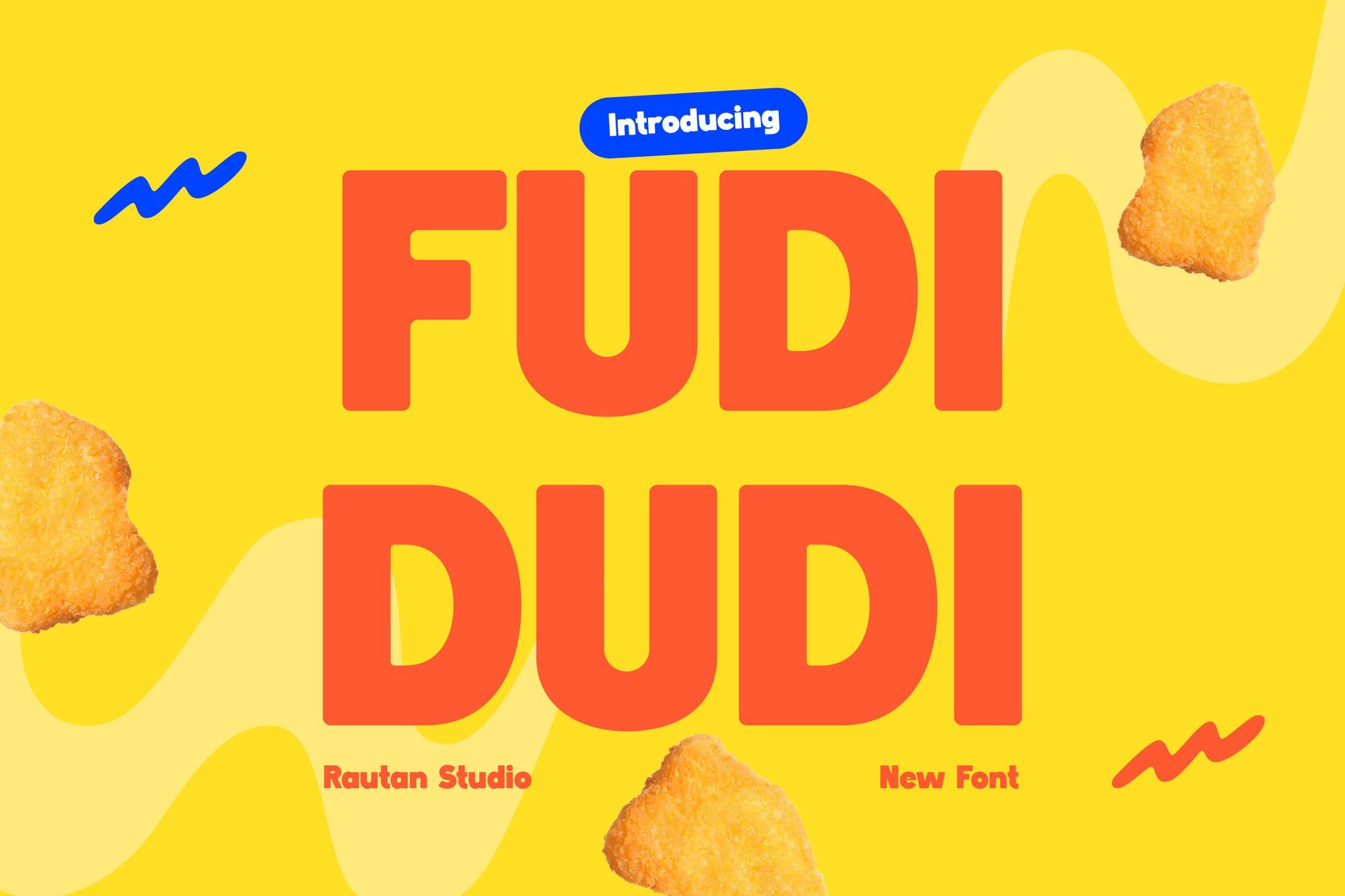
Fudidudi – Bold Diplay Font
Fudidudi – Bold Diplay Font is a clean and thoughtfully built typeface that works seamlessly for both professional branding and everyday creative uses. Fudidudi is a bold playful display typeface crafted for food branding, snack packaging, and attention-grabbing promotional design. With chunky shapes, rounded edges, and a lively baseline, this typeface delivers a fun and expressive personality that instantly captures attention.
Its geometric yet soft letterforms create a friendly and energetic tone, making it perfect for fast food ads, restaurant menus, product packaging, posters, and social media campaigns. The thick structure enhances readability at large sizes while maintaining a strong visual impact across both print and digital platforms. With multilingual support for 67 languages, Fudidudi allows brands to communicate globally while keeping a consistent, bold, and engaging identity.
Fudidudi is built for high-impact visuals where bold typography drives attention. It works seamlessly across branding, posters, packaging, menu boards, app UI, and social media ads—especially in food, beverage, and lifestyle industries. Whether you’re promoting crispy snacks, street food, desserts, or restaurant specials, this typeface helps create an energetic and approachable vibe that encourages engagement and boosts visual appeal. Its playful structure makes it ideal for designers who want strong headlines that feel fun, modern, and instantly noticeable in crowded marketplaces.
Key Features :
Chunky Rounded Letterforms Bold shapes with soft edges create a friendly and impactful appearance.
High Visibility Design Built for strong readability and standout headlines in ads and promotions.
Perfect for Food & Lifestyle Branding Ideal for packaging, menus, posters, social media, and product campaigns.
Multilingual Support – 67 Languages Expand your reach with wide international language compatibility.
Energetic and Expressive Style Adds personality and excitement to every design composition.
Versatile for Digital & Print Works effectively across branding, UI design, and marketing materials.
In fast-moving markets, strong typography makes the difference. Fudidudi gives designers, marketers, and food brands the power to create visuals that instantly grab attention and communicate energy. From snack packaging to restaurant promotions and social media campaigns, this typeface helps your message stand out with confidence and clarity.